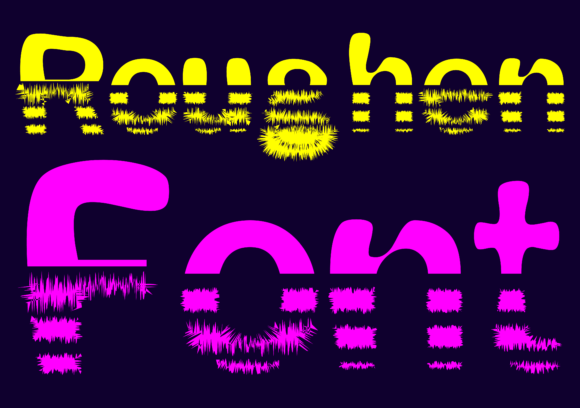
Immerse yourself in the captivating world of Roughen Font, a masterpiece designed to unleash your creativity and ignite your imagination. This exceptional display font, meticulously crafted by the visionary Timhar Designer, is not merely a collection of letters; it's an invitation to express your unique style and leave an unforgettable mark.
Roughen Font transcends the boundaries of ordinary fonts, inviting you into a realm of boundless possibilities. Its rugged and distinctive glyphs evoke the raw beauty of ASCII art, allowing you to create captivating designs that resonate with a sense of nostalgia and playfulness.
Whether you're a seasoned designer seeking inspiration or a novice eager to make your mark, Roughen Font empowers you to unleash your creativity like never before. Its versatility knows no bounds, seamlessly adapting to a myriad of projects, from quirky social media graphics to eye-catching branding materials.
Add a touch of whimsy and character to your designs with Roughen Font. Its playful forms will add a smile to your face and captivate the attention of your audience. Experience the joy of crafting designs that evoke a sense of wonder and delight, leaving a lasting impression that will continue to inspire and engage.
Don't let the ordinary hold you back. Embrace the extraordinary with Roughen Font. Let its unique charm elevate your designs to new heights, creating masterpieces that stand out from the crowd.
Indulge in the boundless creativity that Roughen Font offers. Its ASCII-inspired glyphs will spark your imagination and empower you to craft designs that are both memorable and meaningful. Join the ranks of discerning designers who have discovered the transformative power of Roughen Font and let your creations speak volumes about your passion, originality, and unwavering commitment to excellence.